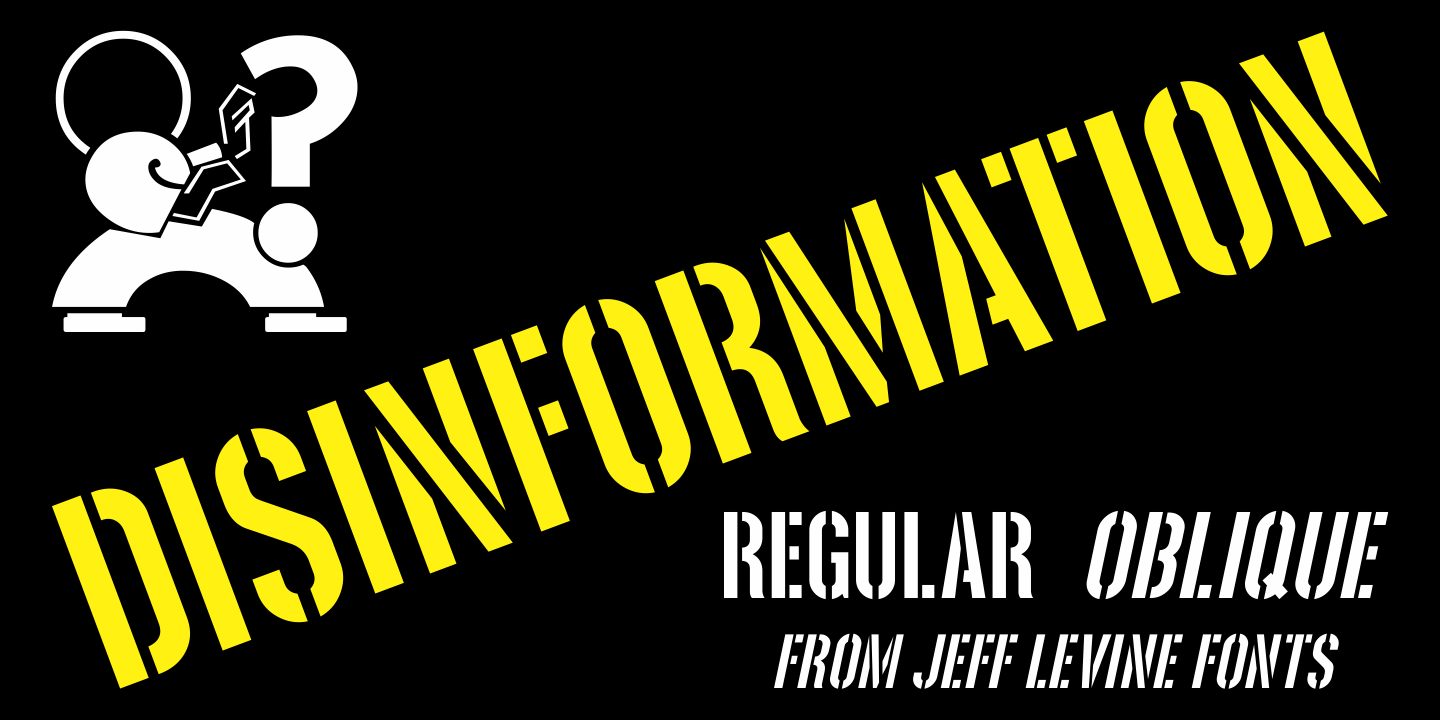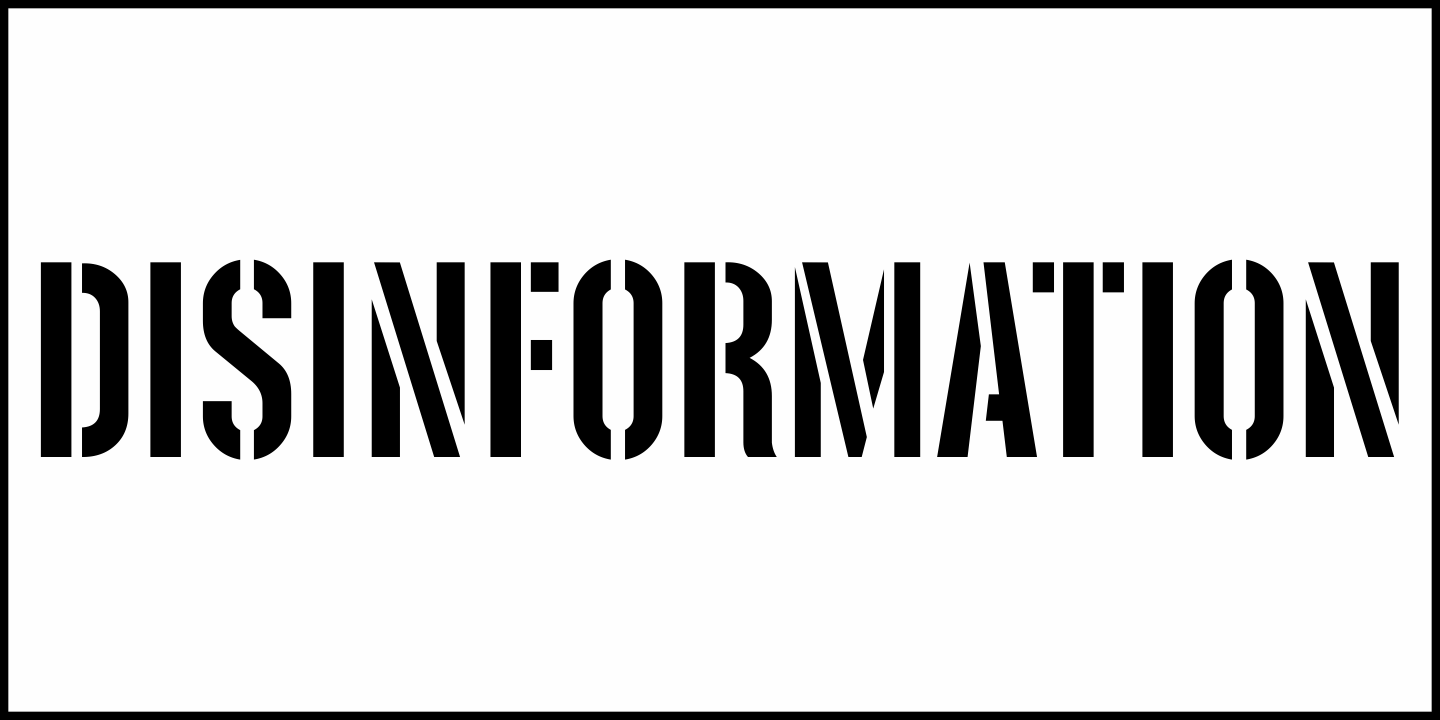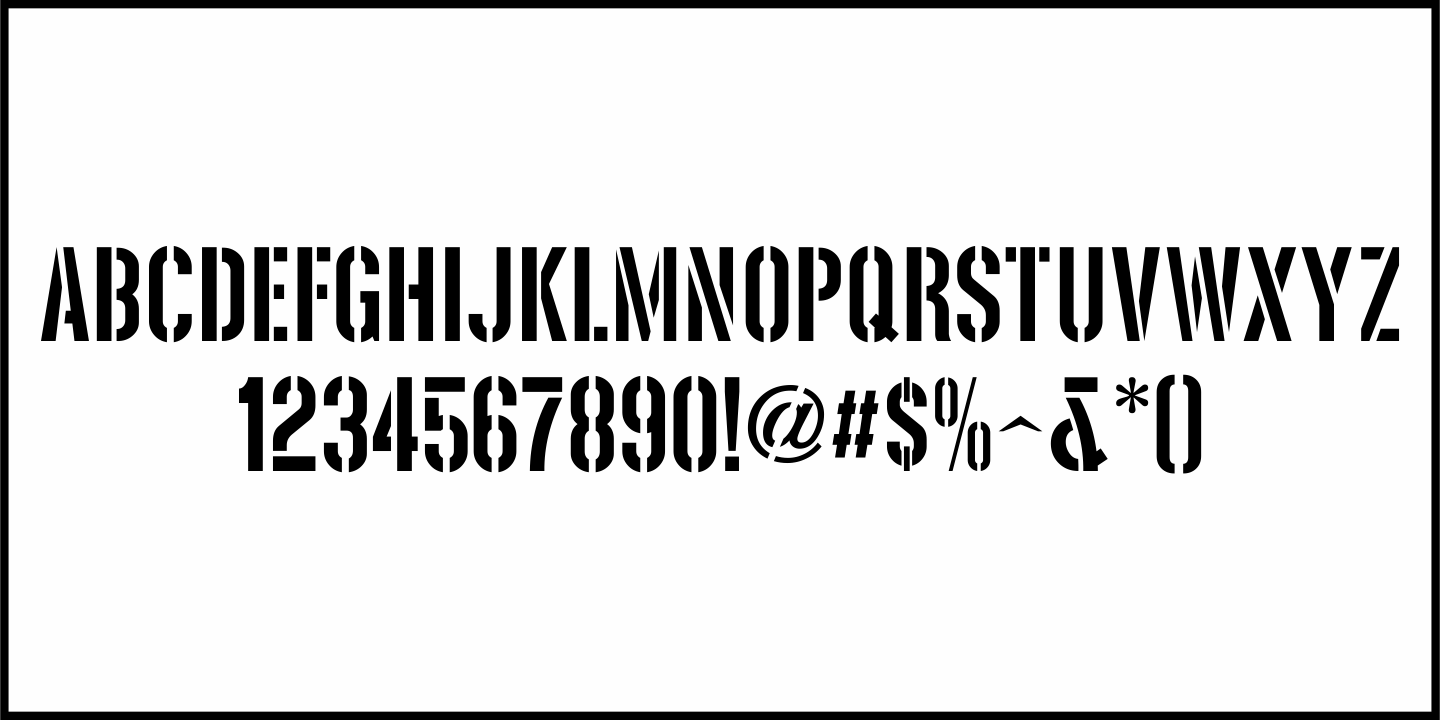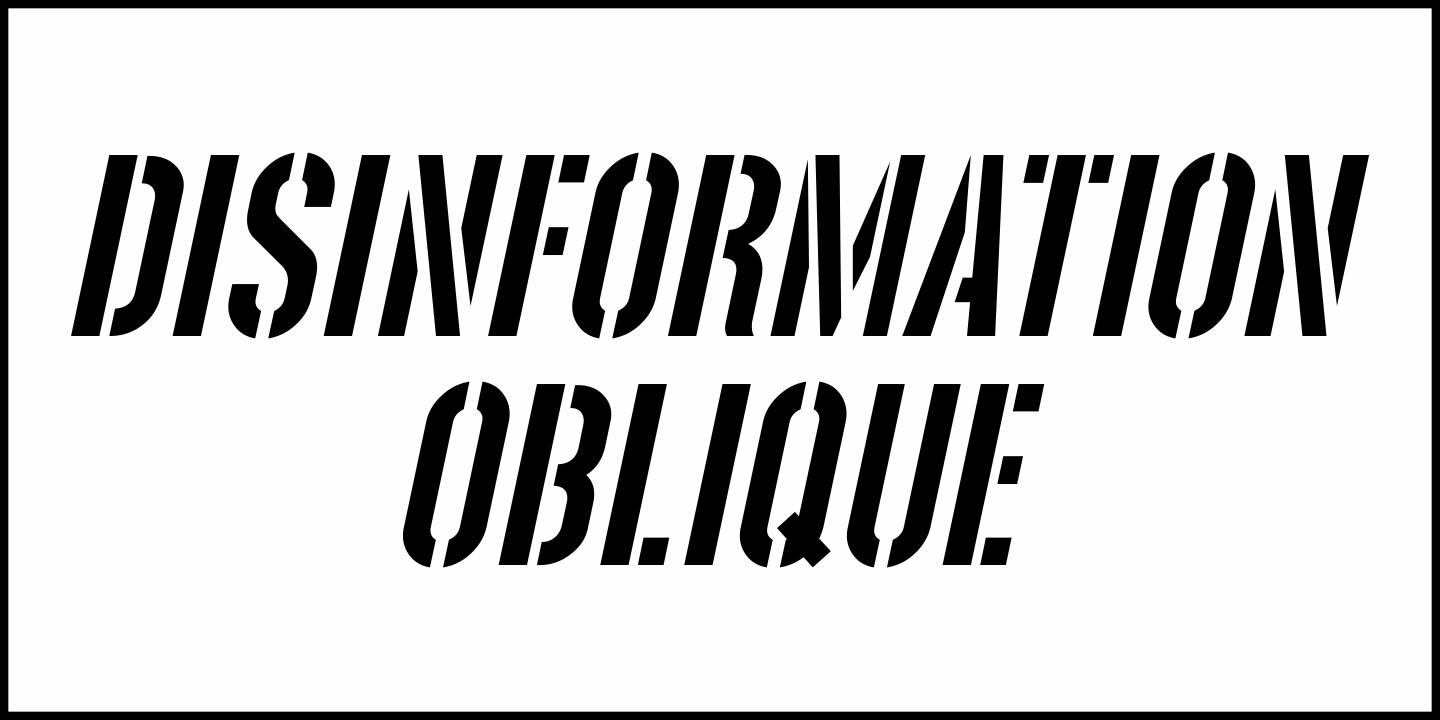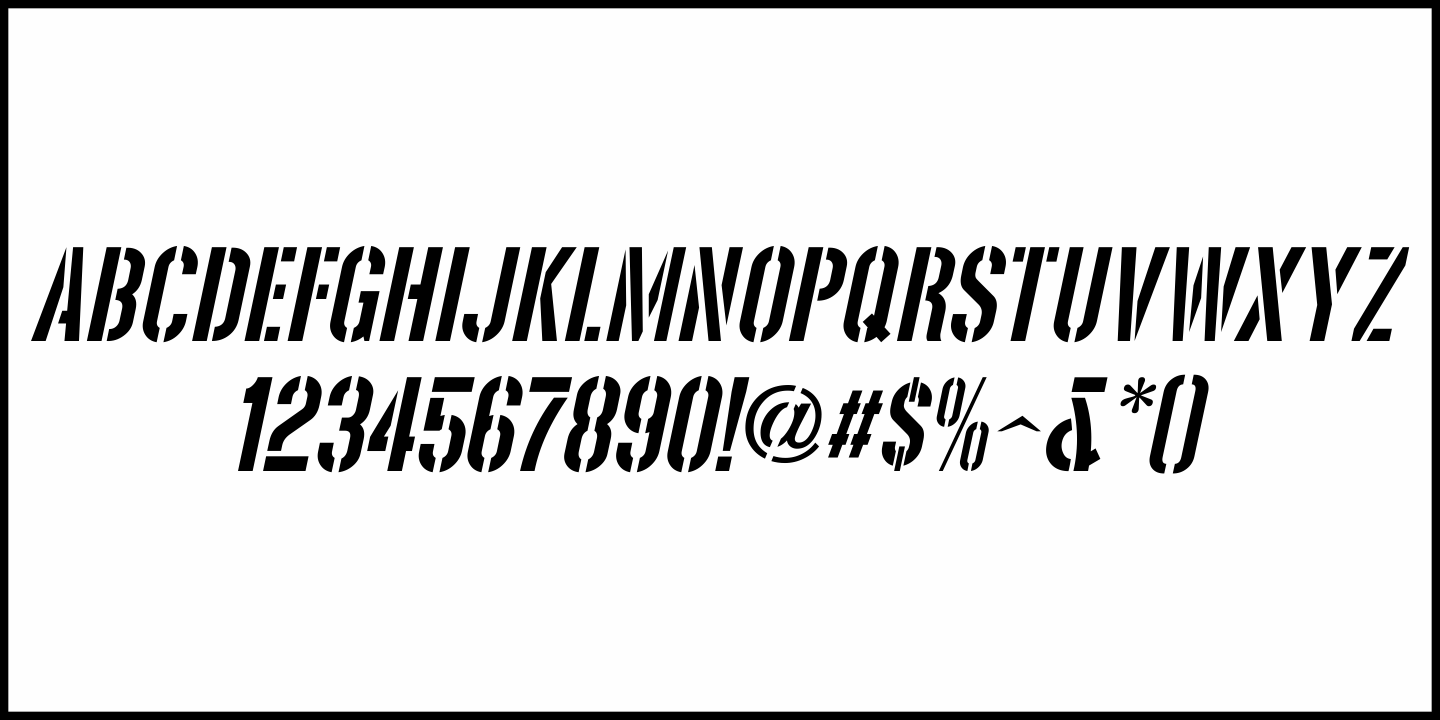
Disinformation
In the January, 1962 issue of Photoplay magazine, a condensed sans stencil font was used in the article title "Blackmail-The Man Who is Trying to Take Liz Away from Eddie".  (At the time, Elizabeth Taylor was married to Eddie Fisher and they were perfect fodder for the gossip columnists, fan magazines and tabloids.)
The digital version is now available as Disinformation JNL, in both regular and oblique versions.
Disinformation Regular by Jeff Levine Fonts